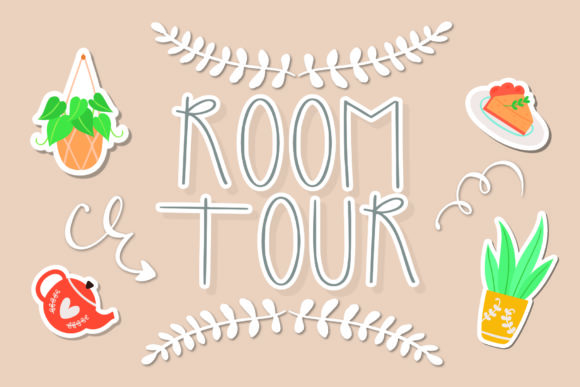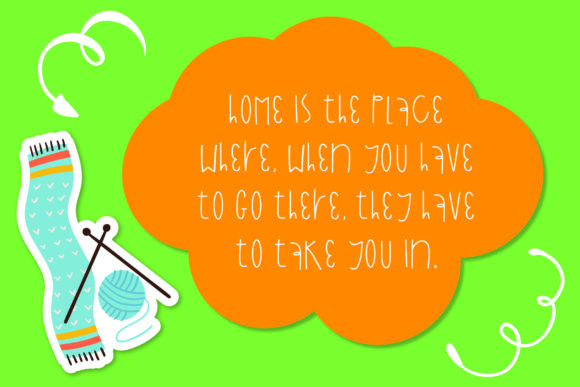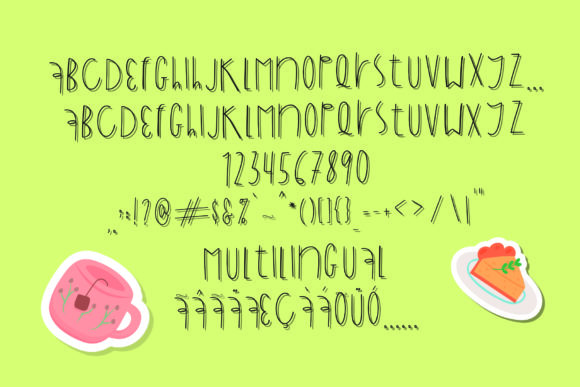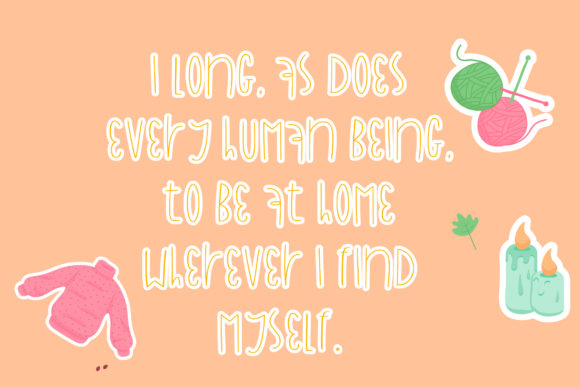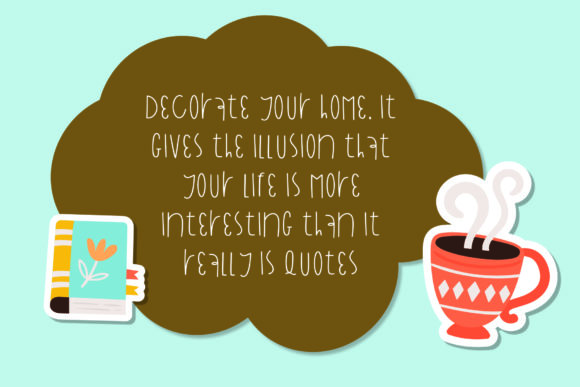
Simple Home Font
About Simple Home Font
Simple Home is a dainty, thin and tall lettered handwritten font. It is perfect for logos, invitations, wedding designs, social media posts, advertisements, and so much more!